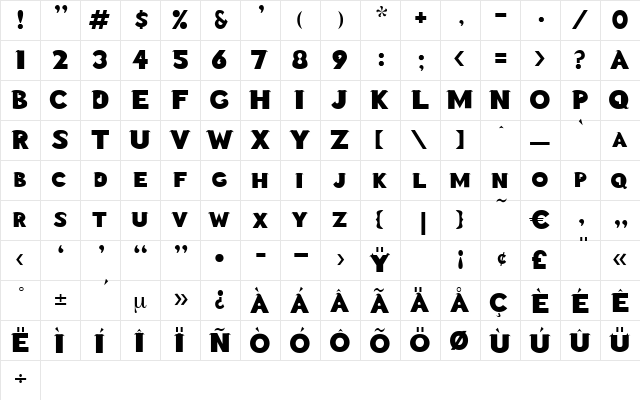
Desperado Regular
Design Context for Desperado Typeface
Desperado takes a measured approach to typography — its balanced proportions and neutral character make it a reliable workhorse for both digital and print work.
Pro Tip: Use Desperado in both headline and body roles to test its range before committing to a single application.